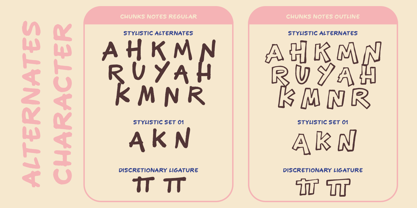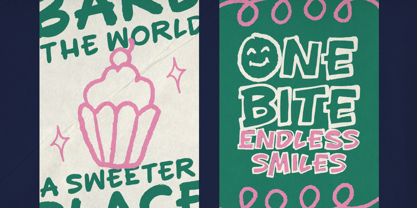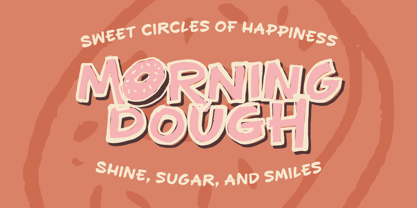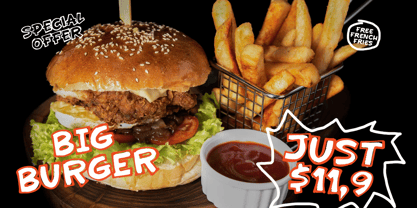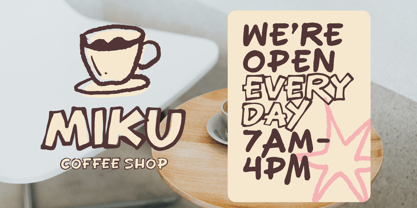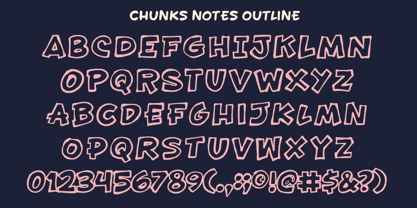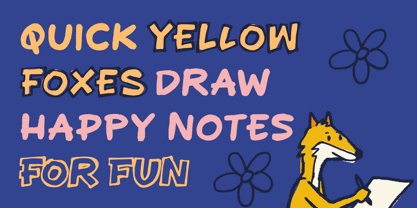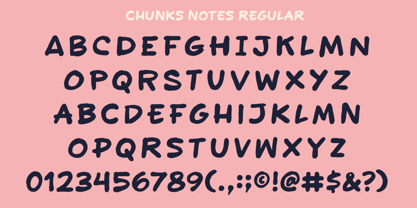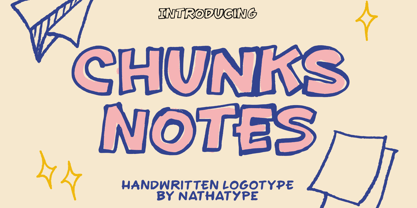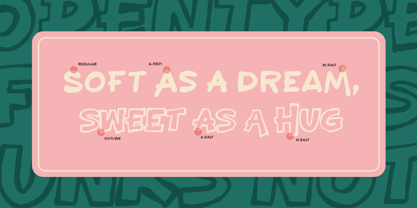
Chunks Notes
by Nathatype
The Chunks Notes Font Family was designed by Donis Miftahudin and published by Nathatype. Chunks Notes contains 2 styles and family package options. More about this family
Chunks Notes is a bold handwritten font designed to bring warmth, creativity, and friendliness to your designs. Its casual, handwritten style makes it perfect for projects that need a personal, approachable, and fun vibe. Every letter in Chunks Notes is designed with smooth curves and soft edges, creating a welcoming and cheerful impression. The bold stroke and outlined design add a sense of depth and character, making your text pop beautifully in both print and digital formats. In addition, enjoy the features here. Features: Alternates Ligatures Stylistic Sets Multilingual Supports PUA Encoded Numerals and Punctuations Chunks Notes fits in branding, quotes, name cards, apparels, logos, posters, and many more designs. Find out more ways to use this font by taking a look at the font preview. Thanks for purchasing our fonts. Hopefully, you have a great time using our font. Feel free to contact us anytime for further information or when you have trouble with the font. Thanks a lot and happy designing.
Designers: Donis Miftahudin
Foundry: Nathatype